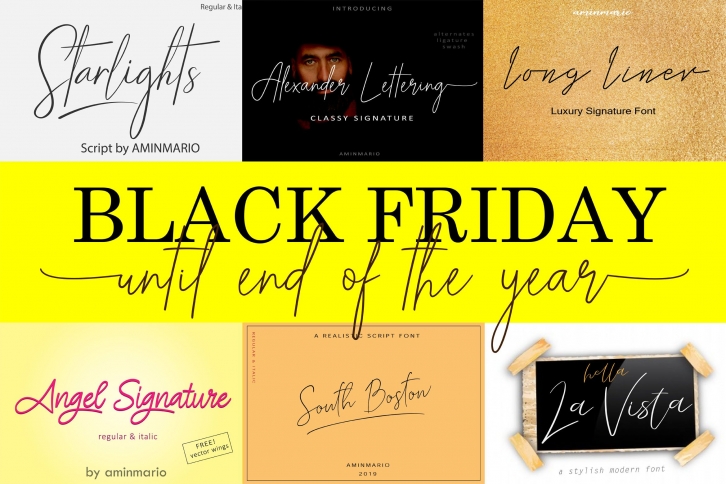
Effortlessly take your branding to the next level with The BUNDLES SERIES.
This BUNDLES was designed using quick strokes to create natural handwritten, to give the font a natural look in a digital world. Perfect for any awesome project that needs hand writing taste.
This is suitable for logos, watermarks on photography, signatures, branding, advertisement, quotes, invitations, stationery, wedding designs, album covers, business cards, clothing, magazines, posters, and more!